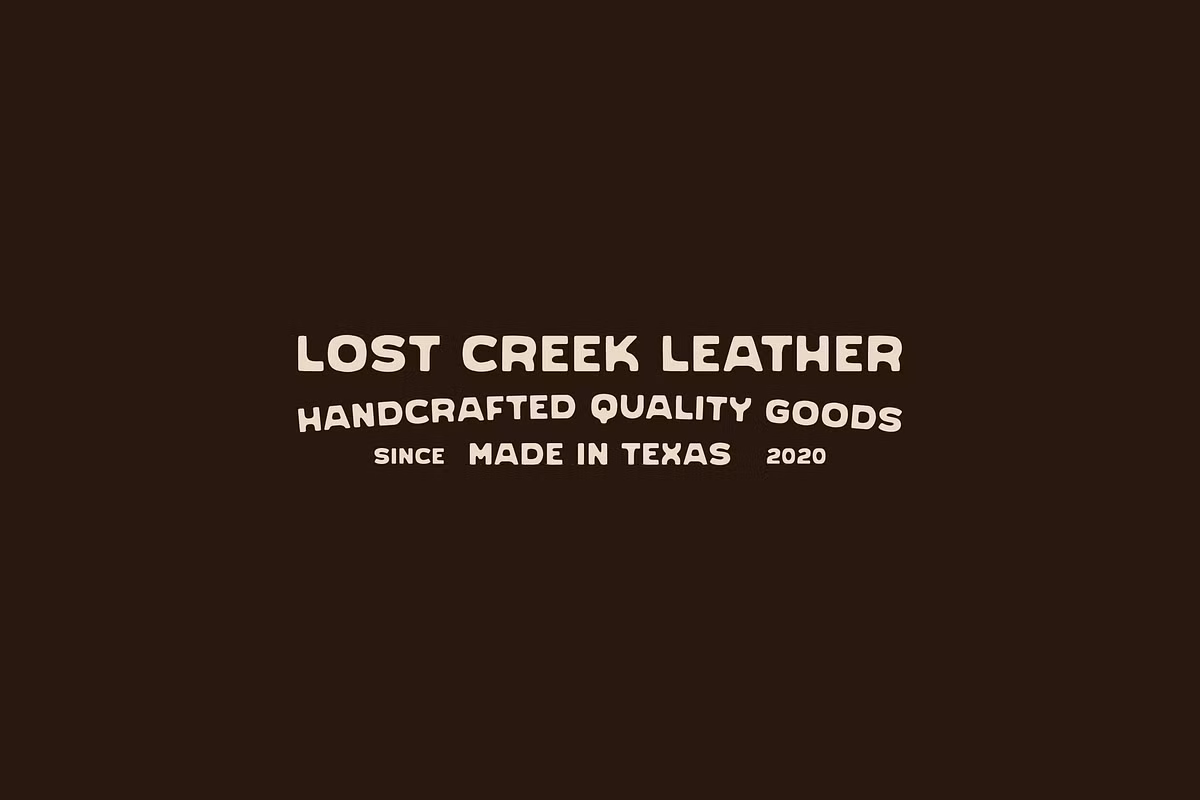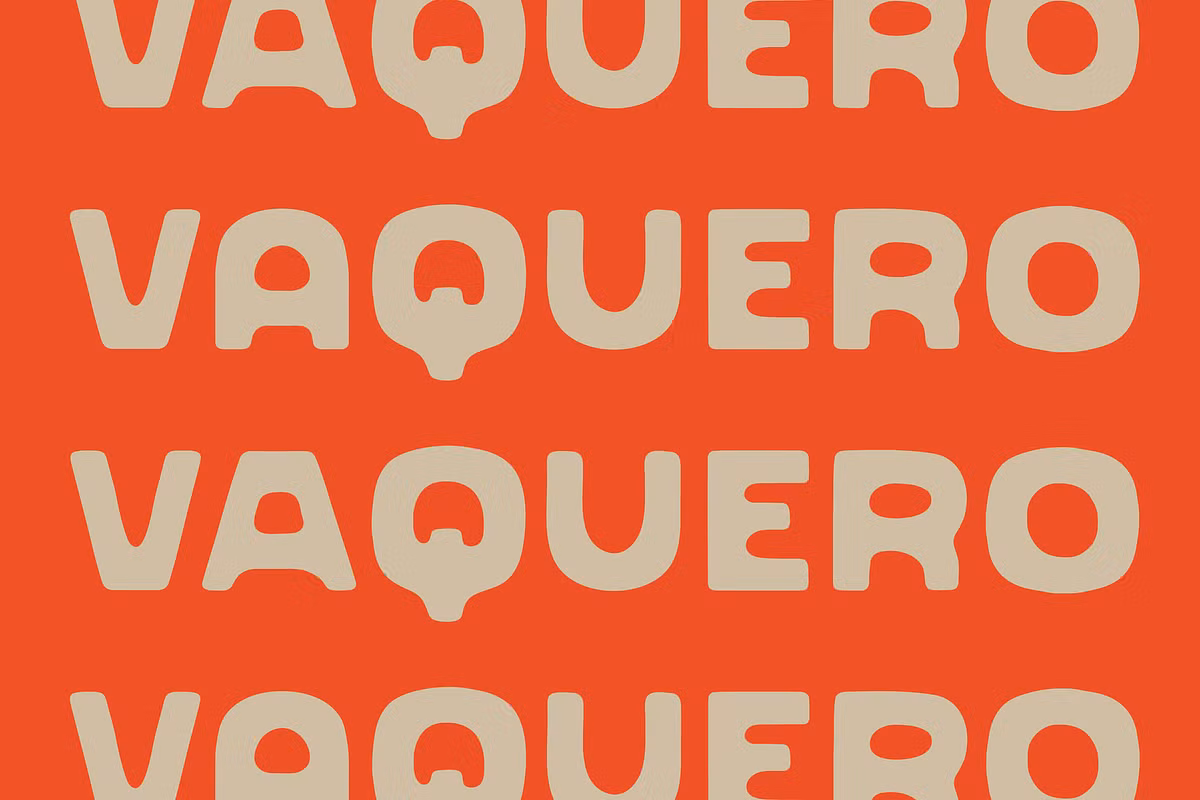
VAQUERO by Ocotillo Design Studio: Handmade Typeface Inspired by the Weathered West
Introduction to VAQUERO
VAQUERO is a one-of-a-kind, handmade font that takes its cues from the rough, weathered look of the American West. The team at Ocotillo Design Studio did a great job of capturing the feel of a bygone era, where nature’s beauty meets artistic typography. What really sets VAQUERO apart is its special alternate A glyph – it’s perfect for designers who want to add a touch of nostalgia and authenticity to their work.
The font has a unique, handmade feel that’s sure to evoke a sense of classic Americana. Whether you’re working on a project that needs a rustic, cowboy-inspired vibe or just want to add some personality to your design, VAQUERO is definitely worth considering. With its beautiful, handcrafted aesthetic, this font is sure to transport your audience to a simpler, more rugged time.
Design Style of VAQUERO
The VAQUERO design style is really inspired by the Western landscape, with all its rough textures and unique features. Every letter is carefully made to look like it’s been around for a while, with imperfections that give it a rustic feel that’s still pretty sophisticated.
Because it’s handmade, this typeface has a personal touch that you don’t often find in digital fonts. And with the alternate A glyph, you get a fun and distinctive element that lets you express your creativity in all sorts of typographic projects. The imperfections and handmade quality of VAQUERO make it stand out, and the attention to detail is what gives it a truly special look.
Characteristics of the Typeface
VAQUERO has a unique look with a mix of sharp and smooth edges, kind of like old wooden signs and classic Western-style letters. The lines are different thicknesses, which gives it a natural, handmade feel. But it’s not just about how it looks – it’s also really easy to read. That makes it perfect for using as a headline or for regular text.
Overall, VAQUERO has a strong and welcoming style, which makes it a great choice for lots of different design projects. It’s bold, but not too bold, and it’s inviting, which is just what you want for a typeface. Whether you’re working on a display project or something that needs body text, VAQUERO is a good option.
Character Sets and Glyphs
VAQUERO has a lot to offer, especially when it comes to its characters. It’s not just about the usual uppercase and lowercase letters, but it also includes numbers, punctuation marks, and special symbols. This means designers can use VAQUERO in many different languages and for various typographic needs.
What’s more, the font comes with an alternate A glyph, which gives designers more freedom to make creative choices that can really make a brand stand out and help get its message across. With all these options, VAQUERO is a great choice for designers who want to add some extra flair to their work.
Special Glyphs and Alternatives
VAQUERO has more to offer than just the usual characters. It also includes some special glyphs that can add a bit of flair to your designs. One of the standout features is the alternate A glyph, which gives your text a unique look that sets it apart from the rest.
This kind of attention to detail makes it easy to customize your designs in subtle ways, which is especially useful for things like branding, signs, and promotional materials. With VAQUERO, you can add a personal touch to your projects and make them really stand out.
Use Cases for VAQUERO
The versatility of VAQUERO makes it suitable for a wide range of applications. Here are some key use cases where this typeface shines:
- Branding and Identity: VAQUERO’s rustic charm and unique design make it an excellent choice for brands looking to evoke a sense of authenticity and connection to nature.
- Event Invitations: Whether for a wedding, festival, or Western-themed event, the handmade quality of VAQUERO adds a personal touch that resonates with guests.
- Product Packaging: VAQUERO can enhance the aesthetic appeal of product labels, particularly for artisanal goods, beverages, and outdoor-related products.
- Signage: The bold and readable nature of VAQUERO makes it ideal for directional signs, storefronts, and promotional banners.
Pairing Suggestions for VAQUERO
When it comes to pairing VAQUERO with other typefaces, the goal is to complement its unique style while ensuring readability. Here are some recommended pairings:
- Serif Pairing: Pairing VAQUERO with a clean serif typeface like ‘Merriweather’ can create a beautiful contrast, balancing the rustic charm with modern elegance.
VAQUERO, created by Ocotillo Design Studio, is more than just a typeface – it’s a tribute to the rugged beauty of the American West. With its handmade feel, one-of-a-kind alternate A glyph, and ability to be used in many different ways, it’s a great tool for designers to have.
You can use VAQUERO to create a brand’s identity, make invitations, or design signs that grab people’s attention. It has a unique style that evokes a sense of adventure and genuineness. Try using VAQUERO in your next design project and let its personality shine through.